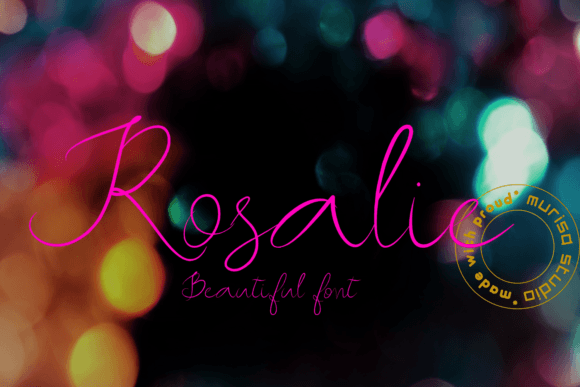
Rosalie Font: A Beautiful Choice for Web Design
There’s a moment in every web design project where you pause and consider the font. It’s not just about aesthetics—it’s about how it speaks to your audience, how it reads on different screens, and whether it aligns with your brand’s voice. Recently, I found myself in that exact situation while designing a boutique online store. The client wanted something elegant yet modern, something that felt personal but still professional. That’s when I discovered Rosalie Font.
A Handwritten Font with Modern Appeal
Rosalie is a handwritten font that feels both classic and contemporary. Its calligraphic influences give it a handcrafted charm, while its clean lines and balanced spacing keep it from feeling too ornate. It’s the kind of font that makes you want to read more—whether it’s a product title, a blog header, or a hero section. I immediately thought of how it could elevate the visual tone of a creative portfolio or a boutique brand.
I tested Rosalie in the hero section of the online store homepage. Placed over a soft pastel background with a subtle image overlay, it felt warm and inviting. The letterforms have a natural flow, which made the text feel less rigid and more approachable. It’s the kind of font that can carry a brand’s personality without overshadowing the content.
Where to Use Rosalie Font
Rosalie is versatile enough to work across multiple design contexts. Here are some real-world applications I considered:
One thing I noticed was how Rosalie handles contrast. On dark backgrounds, it maintains readability, while on light ones, it adds a soft elegance. This flexibility makes it a strong candidate for various design scenarios, from editorial layouts to digital ads.
Readability and User Experience
As a web designer, I always prioritize readability. Rosalie passes this test with flying colors. Its letterforms are clear and distinct, even at smaller sizes. I tested it on mobile devices and found that it scales well, maintaining legibility on responsive layouts. However, I recommend using it sparingly on small buttons or dense text areas to avoid clutter.
For optimal user experience, I paired Rosalie with a simple sans-serif font for body copy. This combination creates a nice contrast—Rosalie for headings and accents, and the sans-serif for readability and professionalism. It’s a classic font pairing that works well in both editorial and commercial contexts.
Font Pairing and Brand Identity
Rosalie isn’t meant to be used alone. It thrives when paired with complementary fonts that balance its decorative nature. For instance, using a modern sans-serif like Montserrat or Inter as the body text keeps the layout grounded. This pairing is especially effective for blogs, course sales pages, and landing pages where clarity and style must coexist.
When building a brand identity, consistency is key. Rosalie can help establish a cohesive visual language across all touchpoints—from social media posts to email newsletters. It adds a touch of personality that resonates with creative audiences and enhances brand trust.
Technical Considerations
Additionally, I verified that Rosalie includes multilingual support, making it suitable for international projects. Commercial licensing is straightforward, so it’s safe to use in client projects, online stores, and brand assets without legal concerns.
Final Thoughts
Incorporating Rosalie Font into my recent project wasn’t just about choosing a typeface—it was about enhancing the overall user experience. Its unique blend of elegance and modernity makes it a standout choice for designers looking to add character to their layouts. Whether you’re building a boutique store, a coaching website, or a creative portfolio, Rosalie has the potential to elevate your design and connect with your audience in meaningful ways.